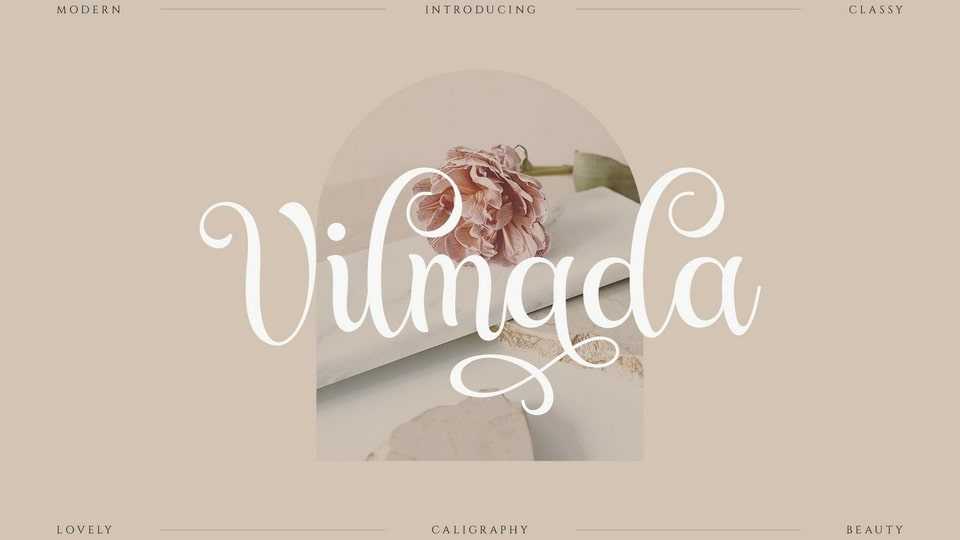
Download Vilmada font, a modern handwritten typeface that looks elegant, natural, stylish and perfect for any awesome projects that need handwriting taste.
Designer: Koplexs Studio